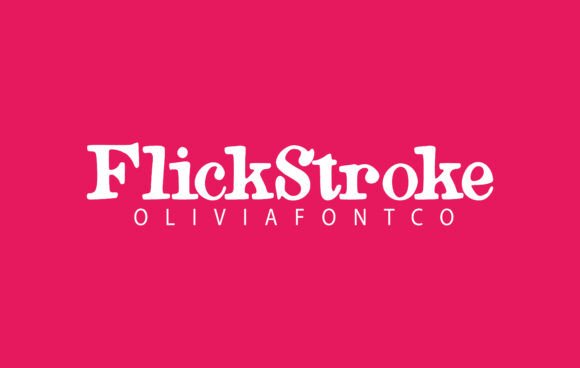
Flickstroke Font: The Ultimate Handwritten Font for Creative Projects
In the world of typography, fonts play a crucial role in conveying the tone and personality of a brand or creative project. Among the numerous fonts available, Flickstroke Font stands out as a unique and authentic handwritten font with a romantic touch. Designed to be a true favorite among designers and creative enthusiasts, Flickstroke Font has the potential to elevate your ideas to new heights. In this article, we’ll explore the features, benefits, and uses of Flickstroke Font, and why it’s an excellent choice for your next creative project.
What is Flickstroke Font?
Flickstroke Font is a carefully crafted handwritten font that exudes a sense of romance and elegance. Its authentic and organic feel makes it perfect for a wide range of creative projects, from magazine headlines to social media graphics, branding, wedding invitations, and more. The font’s legibility and versatility make it an excellent choice for both title and body text.
Features of Flickstroke Font
- Authentic Handwritten Style: Flickstroke Font boasts an authentic handwritten style that adds a personal touch to your creative projects.
- Romantic Touch: The font’s romantic feel makes it perfect for projects that require a sense of elegance and sophistication.
- Legible and Versatile: Flickstroke Font is designed to be legible and versatile, making it suitable for both title and body text.
- Wide Range of Uses: The font can be used for various creative projects, including magazine headlines, social media graphics, branding, wedding invitations, cards, and more.
Benefits of Using Flickstroke Font
Using Flickstroke Font in your creative projects offers several benefits. Firstly, it adds a personal touch to your designs, making them more relatable and engaging. Secondly, the font’s romantic feel can help evoke emotions and create a lasting impression on your audience. Finally, Flickstroke Font’s legibility and versatility make it easy to use in a variety of contexts, from digital media to print materials.
Uses of Flickstroke Font
Flickstroke Font is an incredibly versatile font that can be used in a wide range of creative projects. Here are some examples:
- Magazine Headlines: Use Flickstroke Font to create eye-catching headlines that grab the reader’s attention.
- Social Media Graphics: Add a personal touch to your social media graphics, such as Instagram posts, Facebook updates, and Twitter headers.
- Branding: Use Flickstroke Font to create a unique and memorable brand identity that sets you apart from the competition.
- Wedding Invitations: Add a touch of romance and elegance to your wedding invitations with Flickstroke Font.
- Cards and Stationery: Use Flickstroke Font to create beautiful and personalized cards, letters, and stationery.
Tips for Using Flickstroke Font
To get the most out of Flickstroke Font, here are some tips to keep in mind:
- Use it Sparingly: While Flickstroke Font is beautiful, it’s best to use it sparingly to avoid overwhelming your design.
- Pair it with Other Fonts: Experiment with pairing Flickstroke Font with other fonts to create a unique and visually appealing combination.
- Adjust the Size and Color: Adjust the size and color of Flickstroke Font to suit your design needs and ensure it stands out.
Flickstroke Font is an exceptional handwritten font that offers a unique blend of authenticity, romance, and versatility. Its legibility and range of uses make it an excellent choice for creative projects, from magazine headlines to social media graphics, branding, wedding invitations, and more. By incorporating Flickstroke Font into your designs, you’ll add a personal touch that will resonate with your audience and leave a lasting impression.
- What is Flickstroke Font?: Flickstroke Font is an authentic handwritten font with a romantic touch, designed for creative projects.
- Is Flickstroke Font legible?: Yes, Flickstroke Font is designed to be legible and suitable for both title and body text.